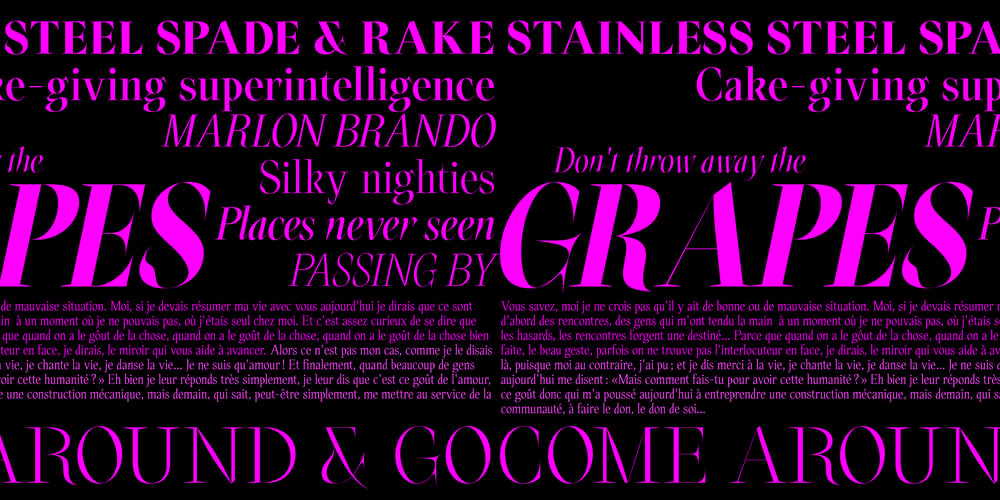
Oroban VF Font Family was designed by Matthieu Salvaggio and published by Blaze Type. Oroban VF contains 6 styles and family package options. Oroban is a type family inspired by the different kind of flowers and plants belonging to the Orobanchaceae family. Thus the different style’s names, Masuria, Hermonthica & Elegans. These are the parasitic plants which bring woe to whole farming cultures. Beautifully shaped in their wide variety of colours and forms. The Oroban font-family takes a deep fall into this inspiring variety of plants to extract some of their very details and mix them into letter-forms.The shapes are balanced with various kind of weight pressed along the ductus: linking the glyphs design to a historical hand-style writing.